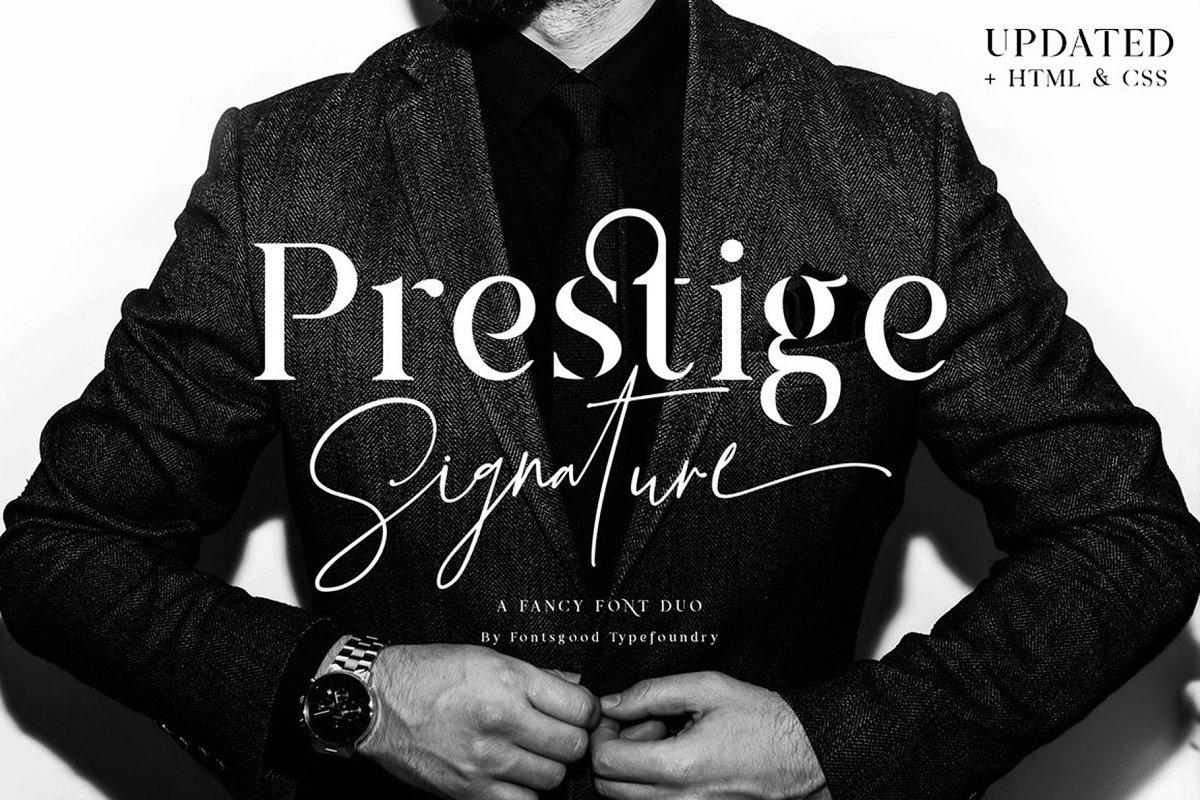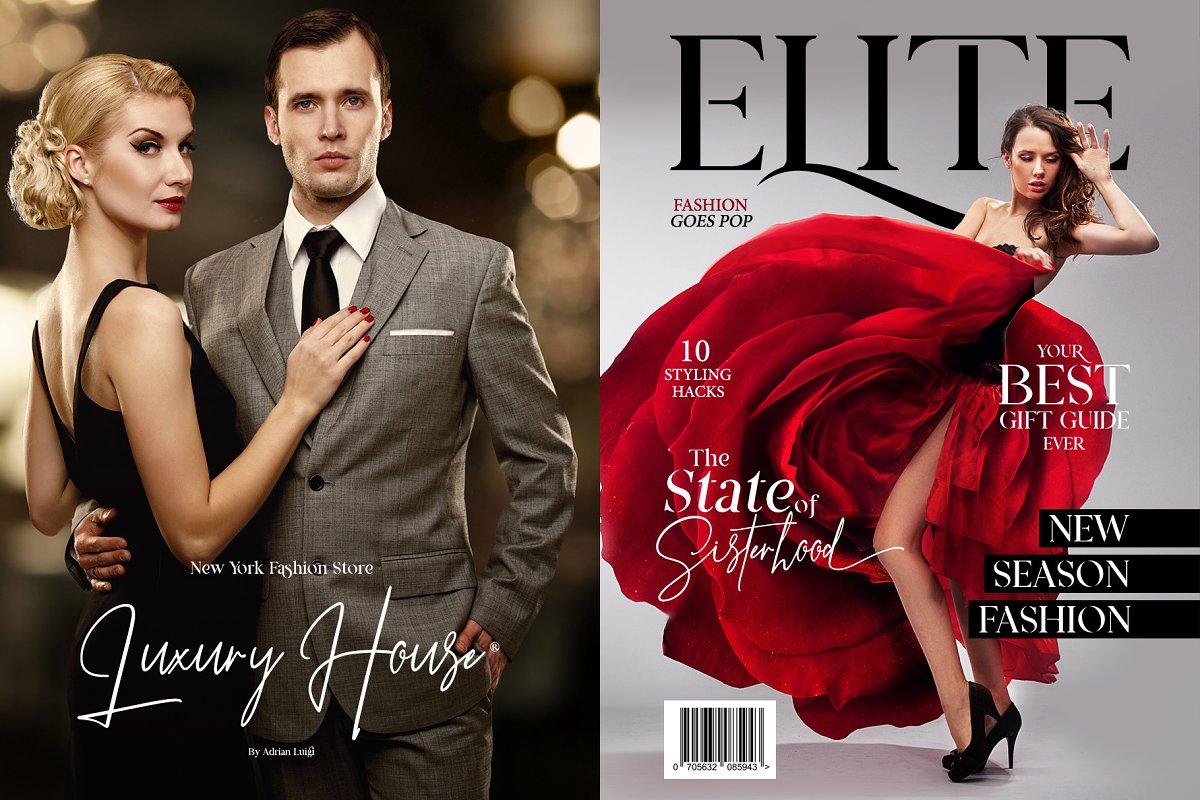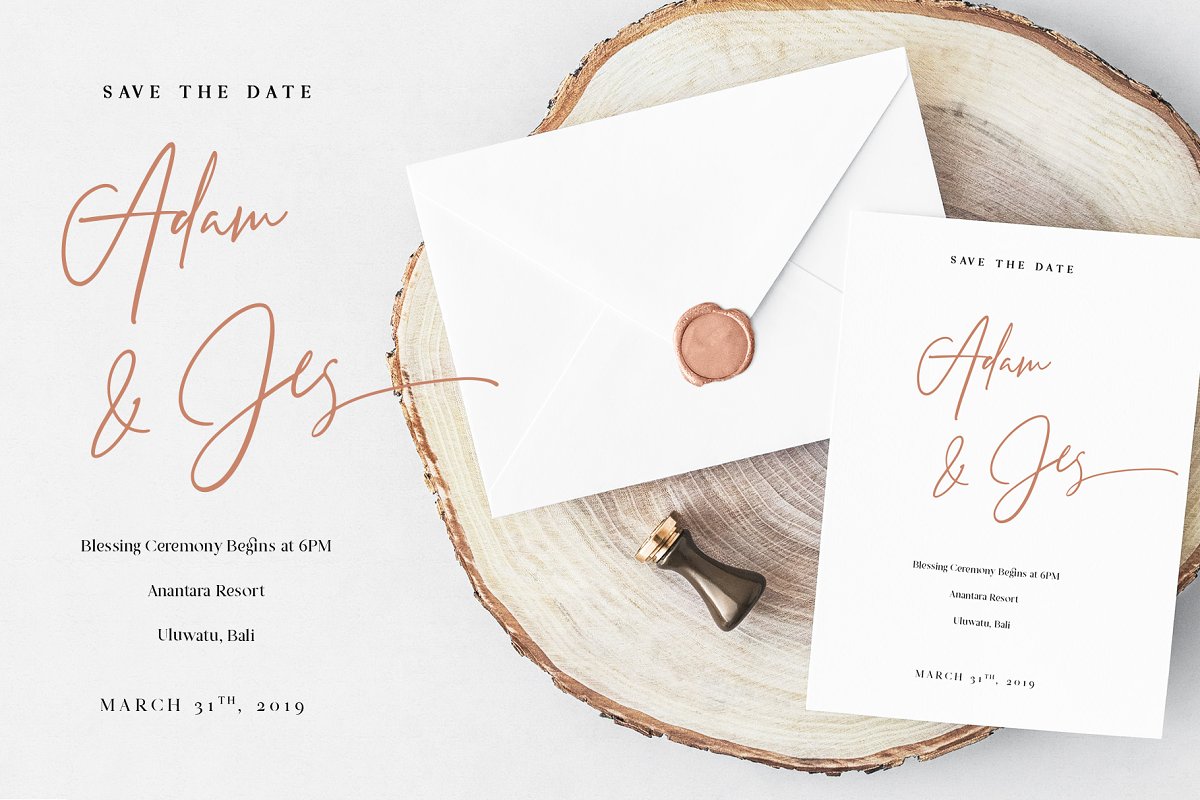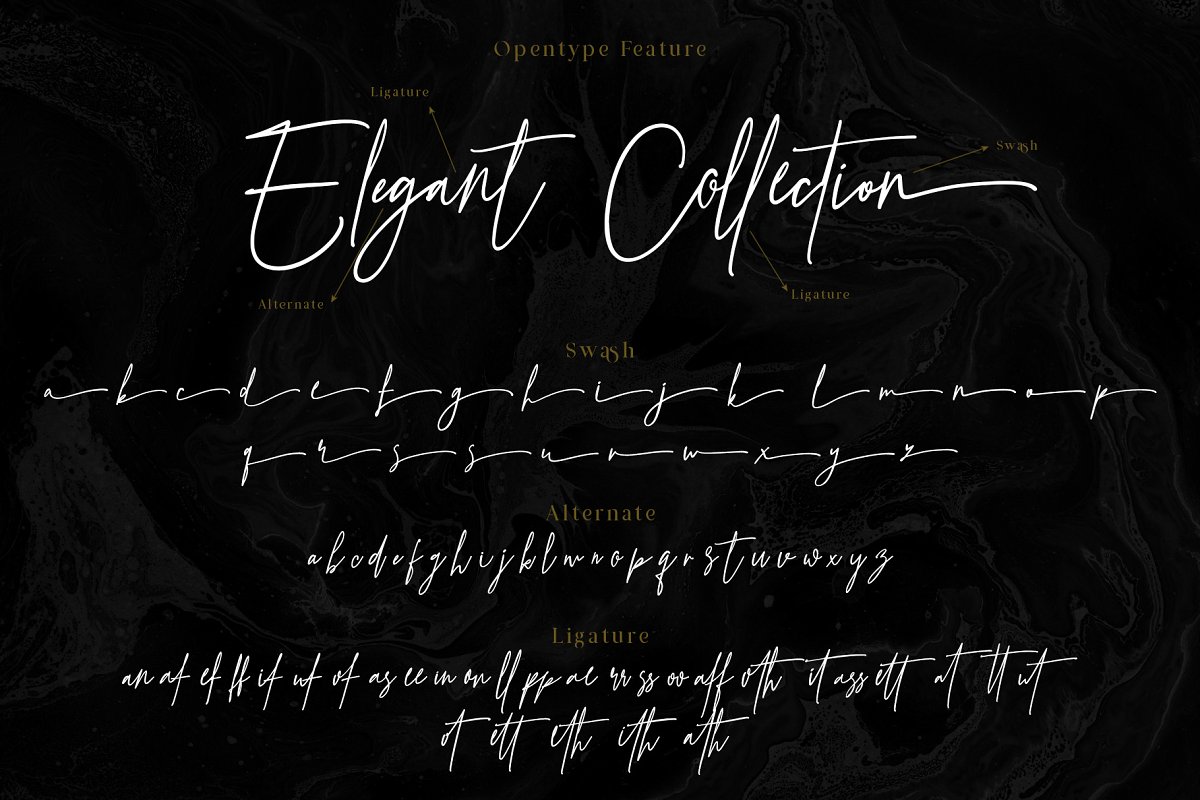
About the Prestige Signature Serif Script Font
Say hi to Prestige Signature a fancy serif and script font, With a stylish old school serif font and a free-flowing signature script, Easy to use for your design projects, including logos & branding, wedding designs, social media posts, advertisements & product designs, Personal & commercial license is included!OPENTYPE FEATURES – First lowercase (after a capital) and last letter swap automatically
2, Prestige Signature Serif, A classy renaissance serif font with 15 century vibe, containing upper and lowercase, numerals , large range of punctuation, ligature, multilingual language and alternate uppercase, Do not hesitate to contact me: info@fontsgood